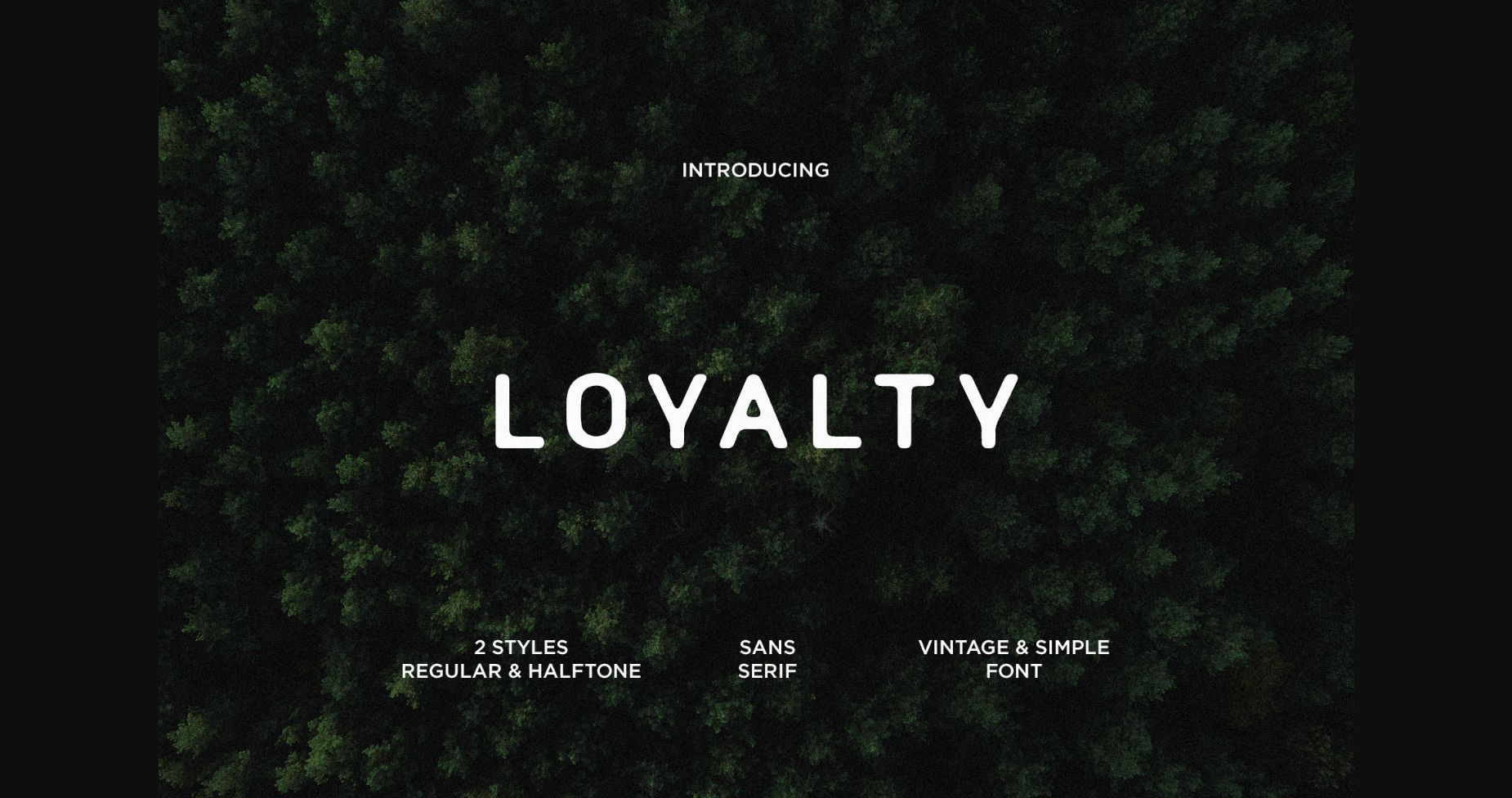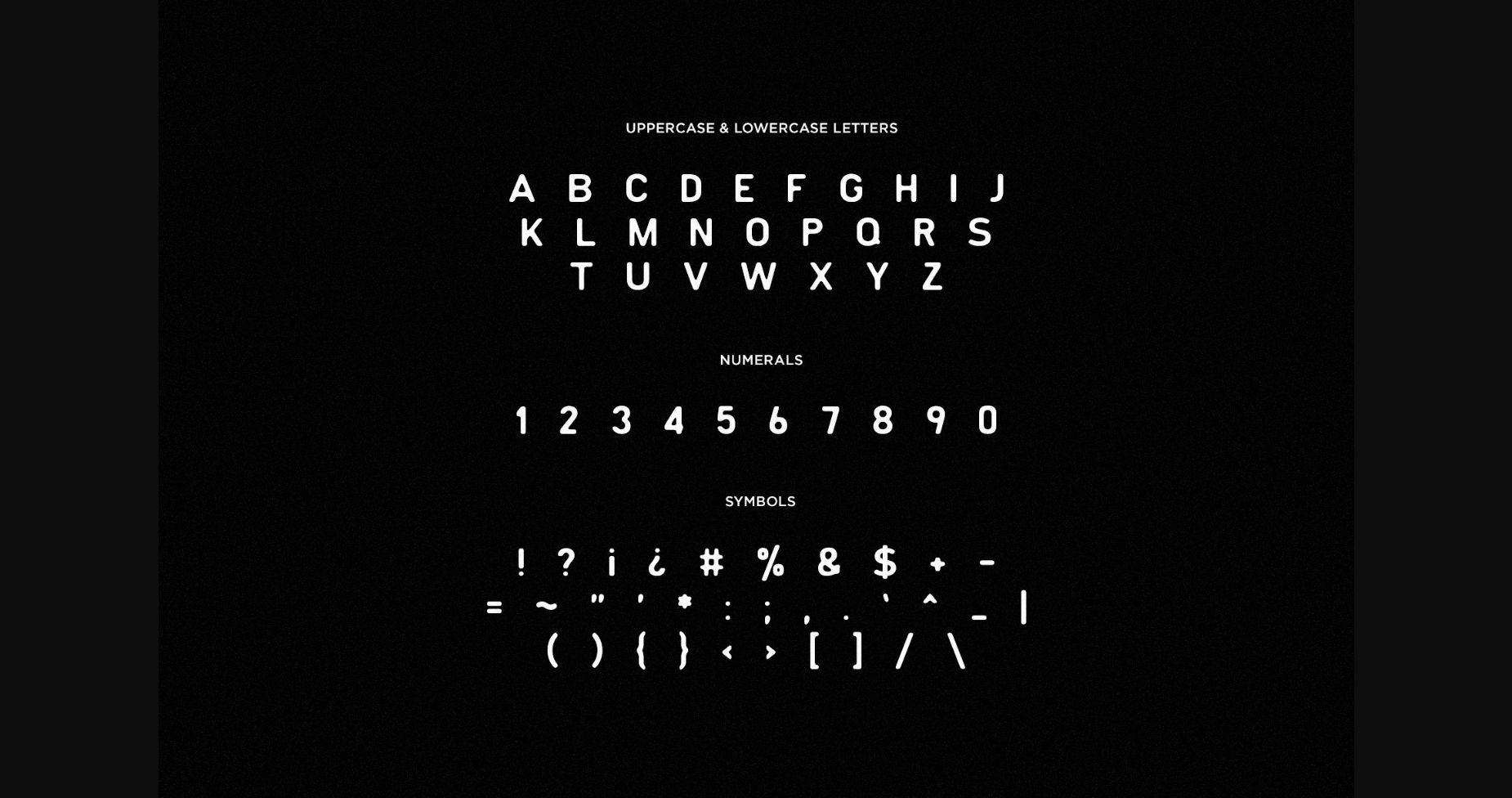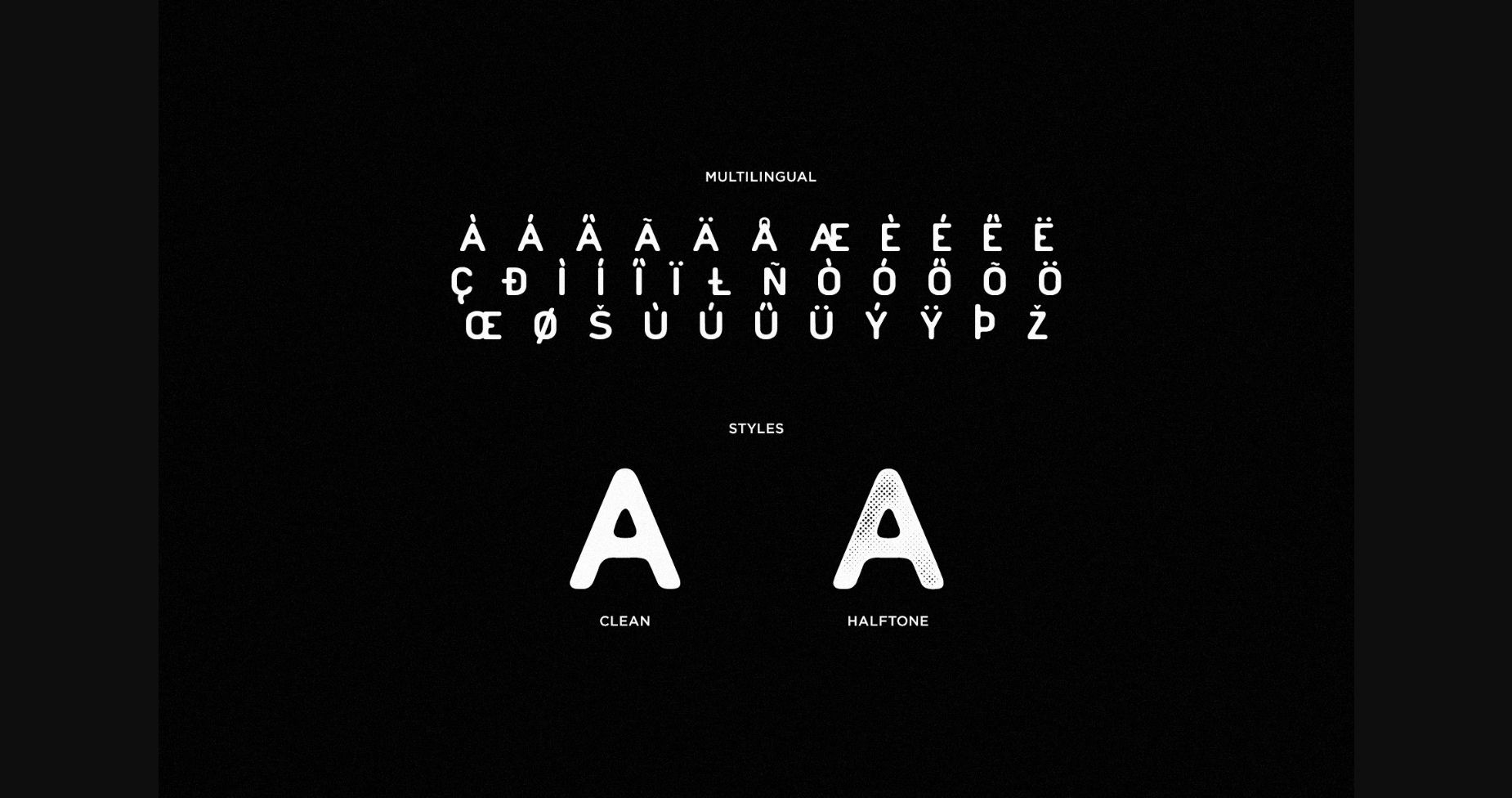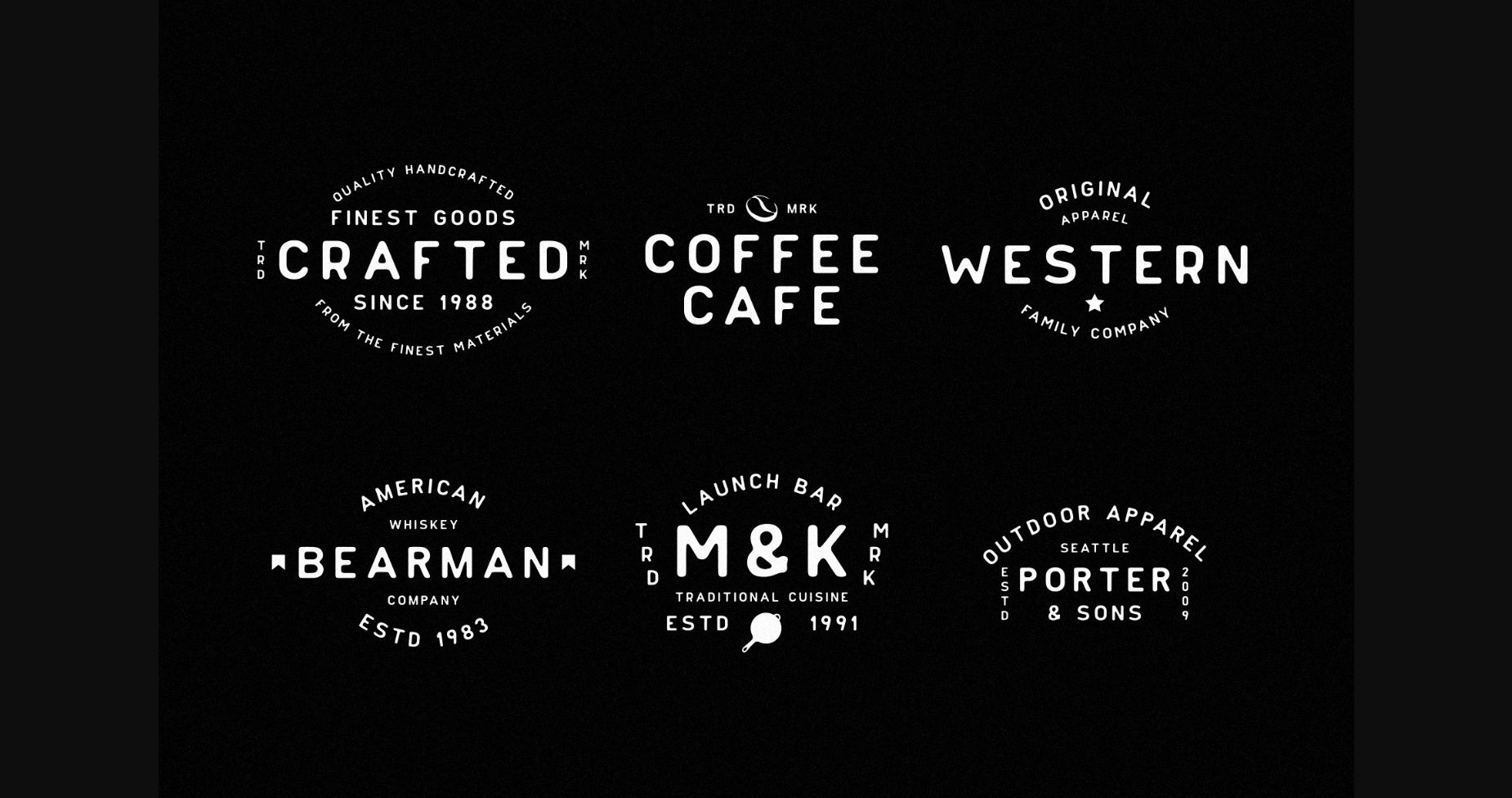
HomeSans Serif FontsLoyalty Font Sans Serif Fonts Loyalty Font FacebookXPinterestWhatsApp 1 of 6 ... Loyalty Font Poster 2... Loyalty Font Poster 3... Loyalty Font Poster 4... Loyalty Font Poster 5... Loyalty Font Poster 6... About Loyalty Font Loyalty is a vintage styled and neat sans serif font. It can easily be matched to an incredibly large set of projects, so add it to your creative ideas and notice how it makes them stand out! DOWNLOAD NOW People also explored Aliment Font Bowthen Signature Font Neillo Font Black Bold Font Christmas Tree Font Kapsalon Overseas Shawdgeti Font Hello Rabbit Font 317 0 TagsLoyaltyLoyalty Font Previous articleNewtralica FontNext articleGeoathenia Sans Font LEAVE A REPLY Cancel reply Comment: Please enter your comment! Name:* Please enter your name here Email:* You have entered an incorrect email address! Please enter your email address here Website: Save my name, email, and website in this browser for the next time I comment. Personal Use Free Dealisya Personal Use Free Read more about this font Krabuler Personal Use Free Read more about this font Farmhouse Christmas Personal Use Free Read more about this font Alista Font Personal Use Free Read more about this font BLOG How to Cut Any Font on Cricut: Convert a Font to SVG (Free) Turn any font into a clean SVG so it cuts crisp on Cricut - a quick 3-step workflow using a free font-to-SVG tool. 5 Fonts That Will Dominate Design Trends in 2026 The 10 Best Handwriting Fonts to Add Personality to Your Designs Top 7 Google Fonts Alternatives for Faster and Privacy-Friendly Web Design (2025)